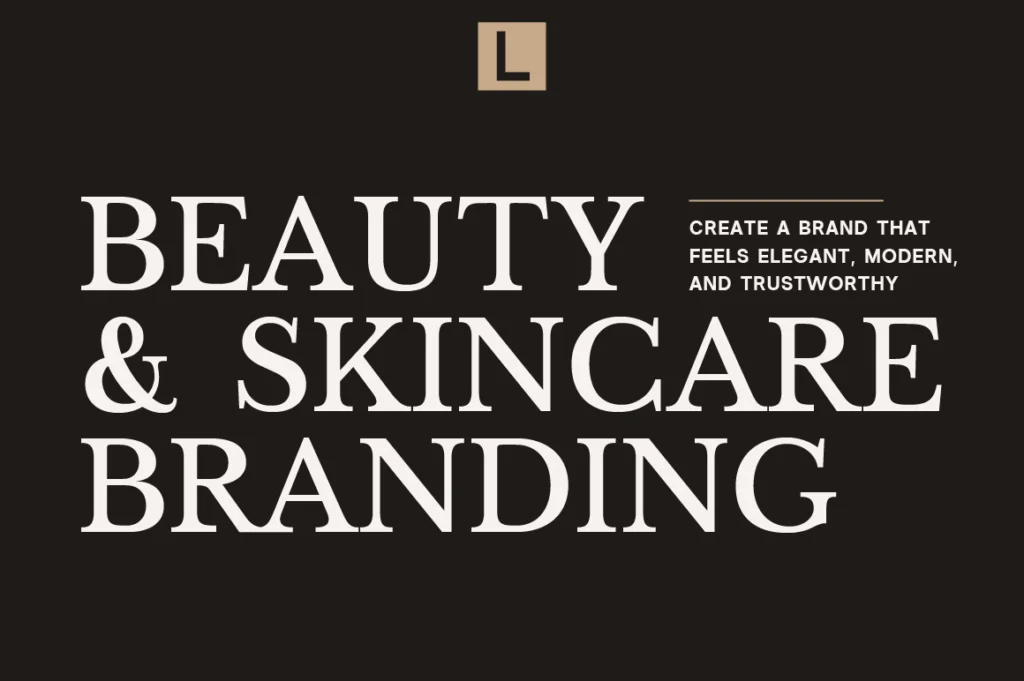
Best Fonts for Beauty & Skincare Branding: Choosing Typography That Builds Trust and Luxury
Beauty Branding Fonts
Create a Brand That Feels Elegant, Modern, and Trustworthy
The beauty and skincare industry thrives on first impressions. Before customers experience a product, they experience its branding. From packaging and websites to social media and advertisements, typography plays a vital role in communicating quality, trust, and sophistication.
Choosing the right font isn’t simply about aesthetics. Typography influences how customers perceive your brand, whether it feels luxurious, approachable, minimalist, organic, or clinically professional.
Many successful beauty brands embrace clean, elegant typography that allows products to speak for themselves. Rather than overwhelming customers with decorative lettering, premium brands often rely on carefully crafted serif and sans-serif typefaces that communicate confidence through simplicity.
For luxury skincare brands, high-contrast serif fonts create an impression of refinement and exclusivity. These typefaces work exceptionally well for logos, product packaging, editorial campaigns, and premium marketing materials.
Minimal sans-serif fonts, on the other hand, communicate cleanliness and modernity. They are commonly used by skincare companies emphasizing science, dermatology, sustainability, and innovation.
The most effective branding systems combine both styles. An elegant serif establishes personality, while a modern sans-serif provides clarity across websites, ingredient lists, instructions, and digital interfaces.
Consistency is equally important. Your typography should remain recognizable across every customer touchpoint, including packaging, e-commerce stores, email marketing, printed materials, and social media content.
When selecting fonts for a beauty brand, consider the emotions you want customers to feel. Soft curves often create warmth and femininity, while sharp details communicate confidence and premium quality. Balanced spacing and generous white space further reinforce a clean, luxurious appearance.
Featured Fonts from Lettertype Studio
Becaure delivers graceful elegance that fits beauty, cosmetics, wellness, and lifestyle branding.
Lucentia combines editorial sophistication with timeless luxury, making it ideal for premium packaging and magazine-inspired campaigns.
Vescura offers a refined modern serif that performs beautifully for logos and upscale visual identities.
Elfariany Duo pairs a sophisticated serif with a handwritten script, making it perfect for boutique skincare, perfume brands, wedding businesses, and luxury product launches.
Why Typography Matters in Beauty Branding
Consumers often associate beautiful typography with product quality. A carefully selected typeface builds trust before someone even reads the product description.
Strong typography also improves consistency across branding materials, making businesses appear more established and memorable in an increasingly competitive market.
Investing in professional fonts is a simple but powerful way to strengthen your brand identity and elevate customer perception.
Conclusion
The best beauty brands understand that every design detail contributes to the customer experience, and typography is one of the most influential.
Whether you’re creating a luxury skincare label, cosmetics company, wellness studio, or premium fragrance brand, selecting the right font can dramatically improve how your brand is perceived.